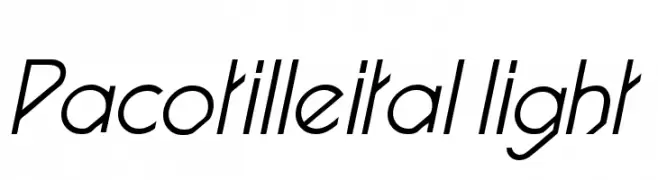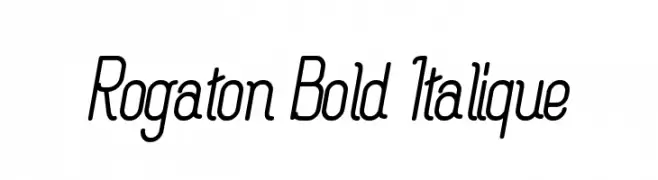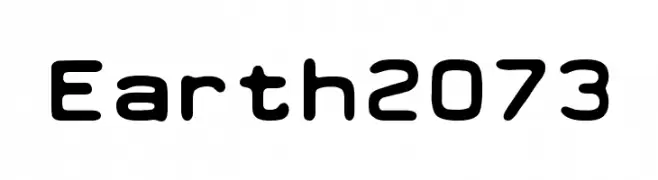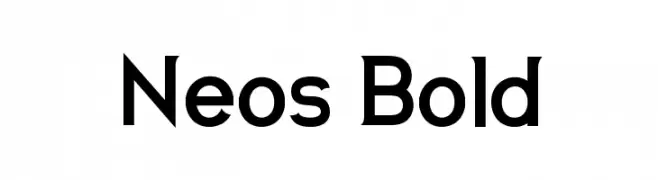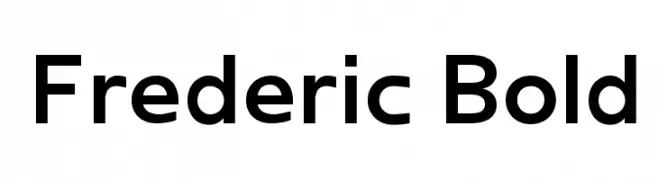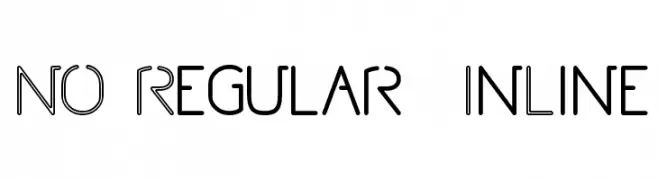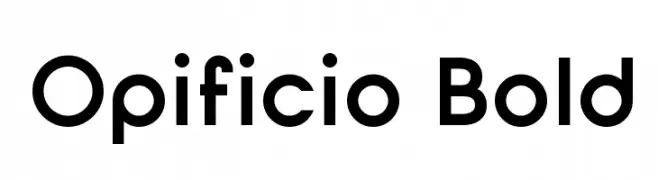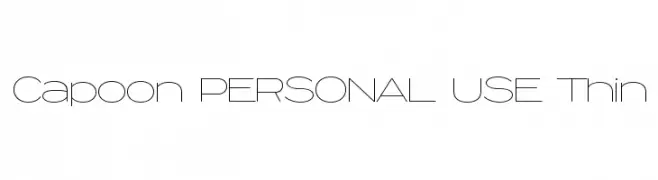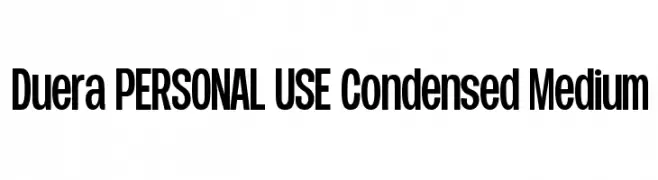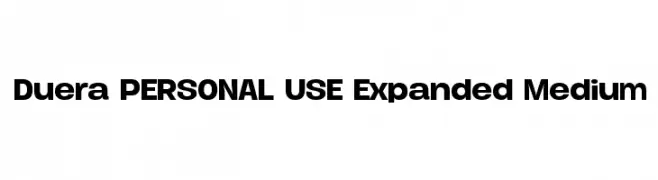
( Luc Mahler )
A modern, slanted script font with elegant curves and sharp angles.
( Luc Mahler )
A bold, italicized, and modern font with a sleek, condensed style.
( Lukas Krakora - www.typewriterfonts.net/ )
A modern, rounded font with a bold and slightly condensed style.
( Matthew Swank - www.behance.net/mtswank )
A bold, modern sans-serif font with clean lines and geometric shapes.
( Matthieu Lonton )
A bold, modern typeface with clean lines and strong presence.
( Mm Fbrk - Marco Mirko Nani - www.behance.net/MarcoMirkoNani )
A modern inline font with geometric precision and a stylish, airy appearance.
( Monofonts - www.monofonts.com )
A bold, modern sans-serif font with geometric precision and clarity.
( Måns Grebäck - www.mansgreback.com )
A sleek, modern font with thin, clean lines and geometric structure.
( Måns Grebäck - www.mansgreback.com )
A bold, condensed font with a modern and uniform appearance.
( Måns Grebäck - www.mansgreback.com )
A bold, modern font with expanded letterforms and consistent thickness.